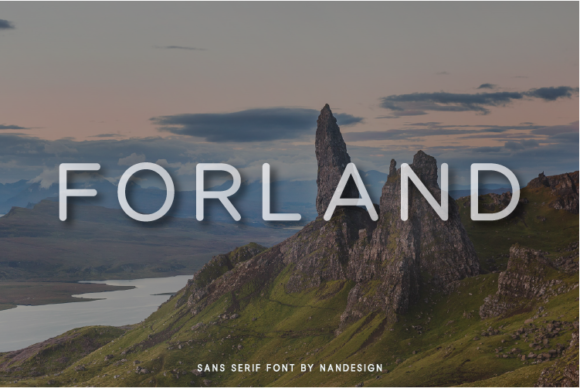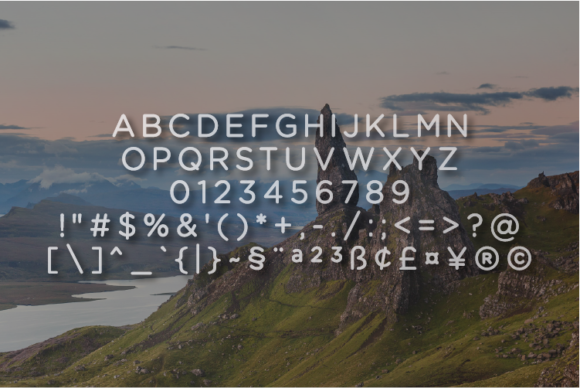
Forland Font: A Modern, Minimalist Sans Serif for Logo Design
About the Forland Font
Explore the possibilities with Forland Font, a font that offers both beauty and functionality. Forland is a beautiful, simple, easy to match sans serif font. Add it to your library of favorite fonts and use it whenever you want a neat yet incredibly versatile style!
Forland’s clean lines and neutral aesthetic make it ideal for branding applications, particularly logos and short headlines. It also works well on packaging where readability at smaller sizes is crucial, and in posters needing a modern, uncluttered feel. However, its simplicity might make it less suitable for lengthy body text or user interface elements where high legibility over multiple lines is paramount.
Its personality is best described as friendly yet sophisticated. Consider pairing Forland with a classic serif like Garamond for a balanced, timeless feel, or a playful script font like Pacifico for a more approachable, hand-crafted look. A geometric sans-serif such as Futura would also create a strong, contemporary pairing.
Avoid using Forland in contexts requiring a strong, authoritative voice or a highly expressive, emotional tone. Its strength lies in its understated elegance and versatility within a modern, clean design framework.
Forland Font Usage Examples
Forland Font Example